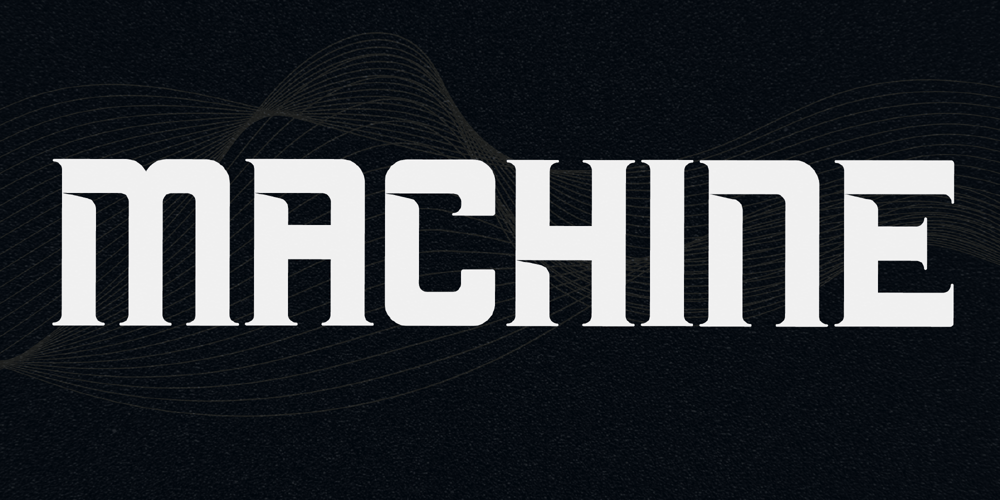
Machine Font Family was designed by Heru Utama Putra and published by Letterena Studios. Machine contains 2 styles and family package options. A serif modern and classic typeface that has its own unique style & modern look.This typeface is perfect for an elegant & luxury logo, book or movie title design, fashion brand, magazine, clothes, lettering, quotes, and so much more.